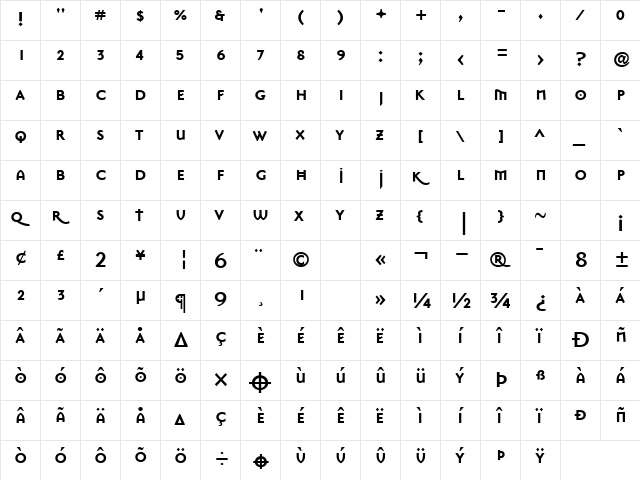
MasonSansSuperBold Bold
Design Context for MasonSansSuperBold Typeface
MasonSansSuperBold is a composed and adaptable typeface that performs quietly and consistently across a wide range of design contexts. The heavy weight commands attention and anchors typographic hierarchies.